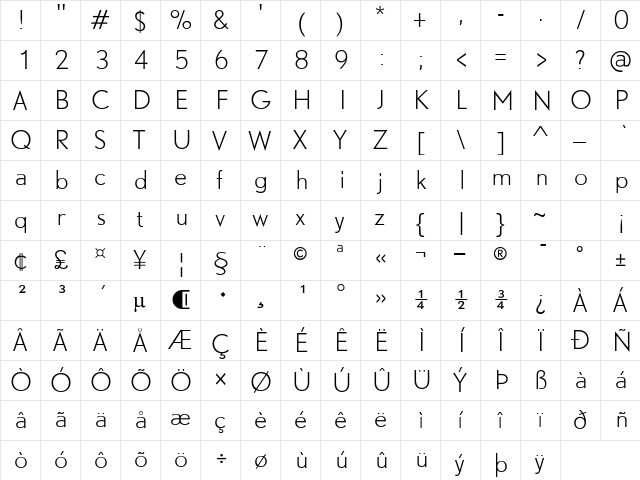
Nobel Dtl Light
Design Context for Nobel Dtl Typeface
Nobel Dtl offers clean, dependable letterforms without strong stylistic allegiance, making it a practical choice for designers who need flexibility. Its slender proportions lend an understated elegance to any composition.
Pro Tip: Use Nobel Dtl in both headline and body roles to test its range before committing to a single application.